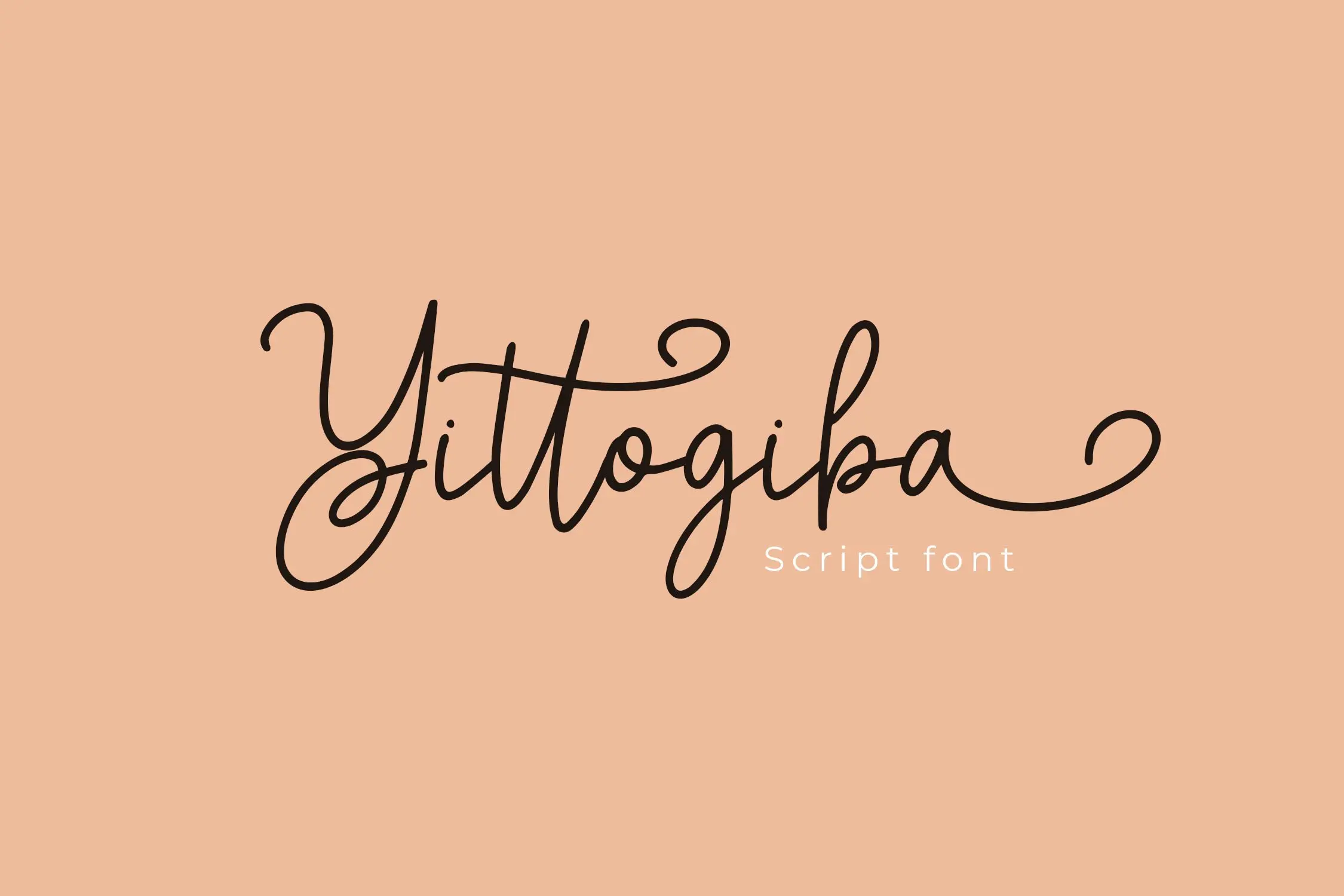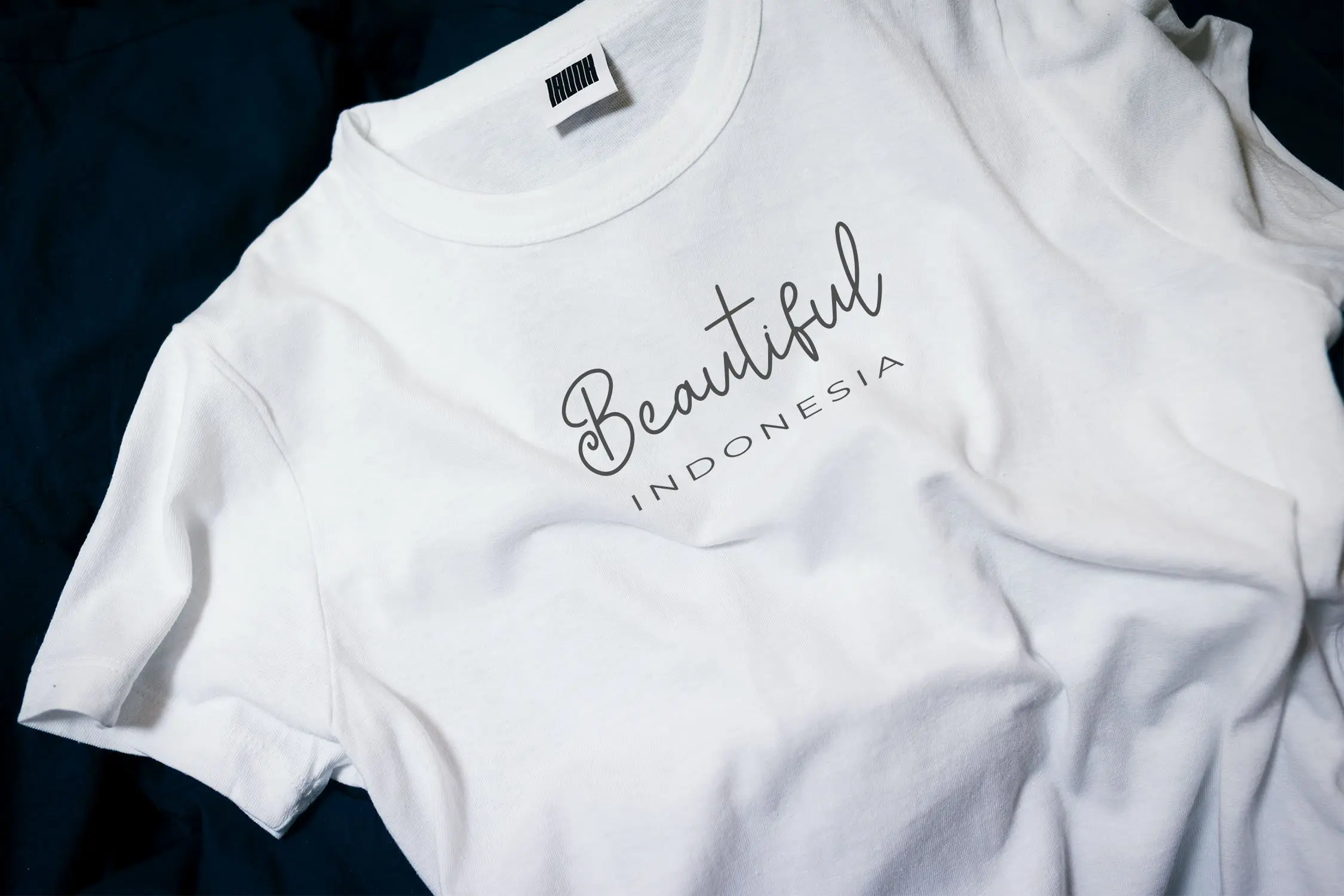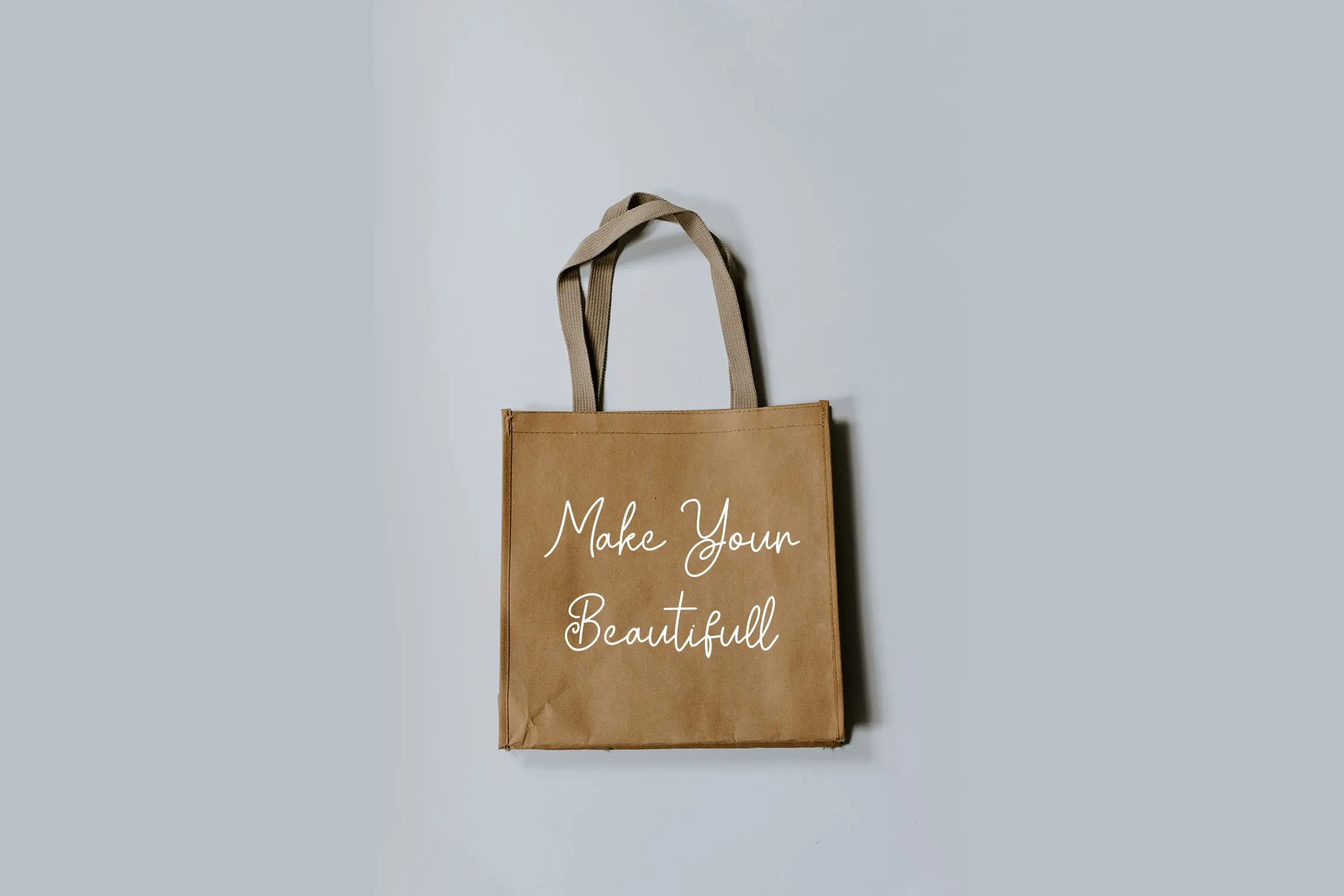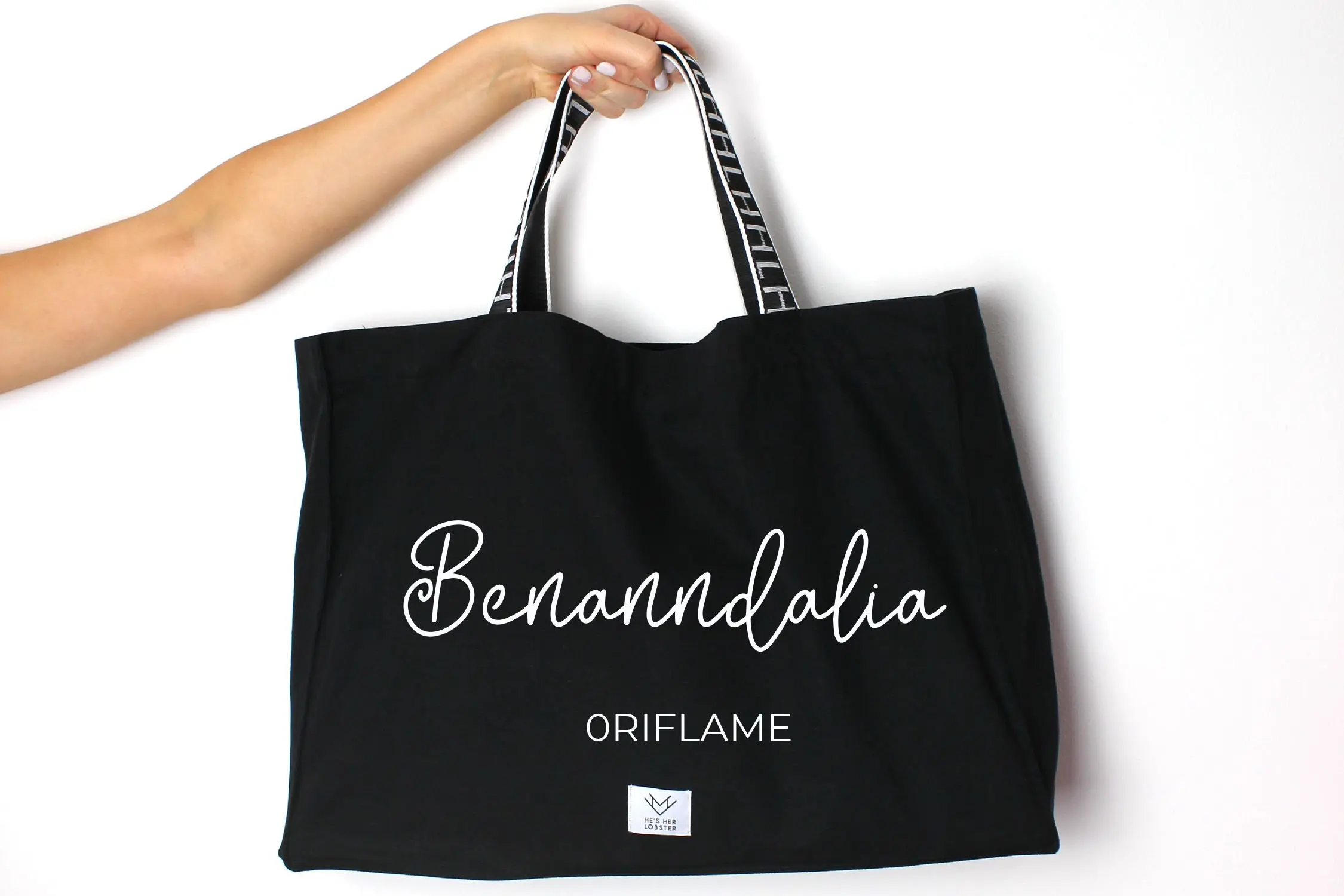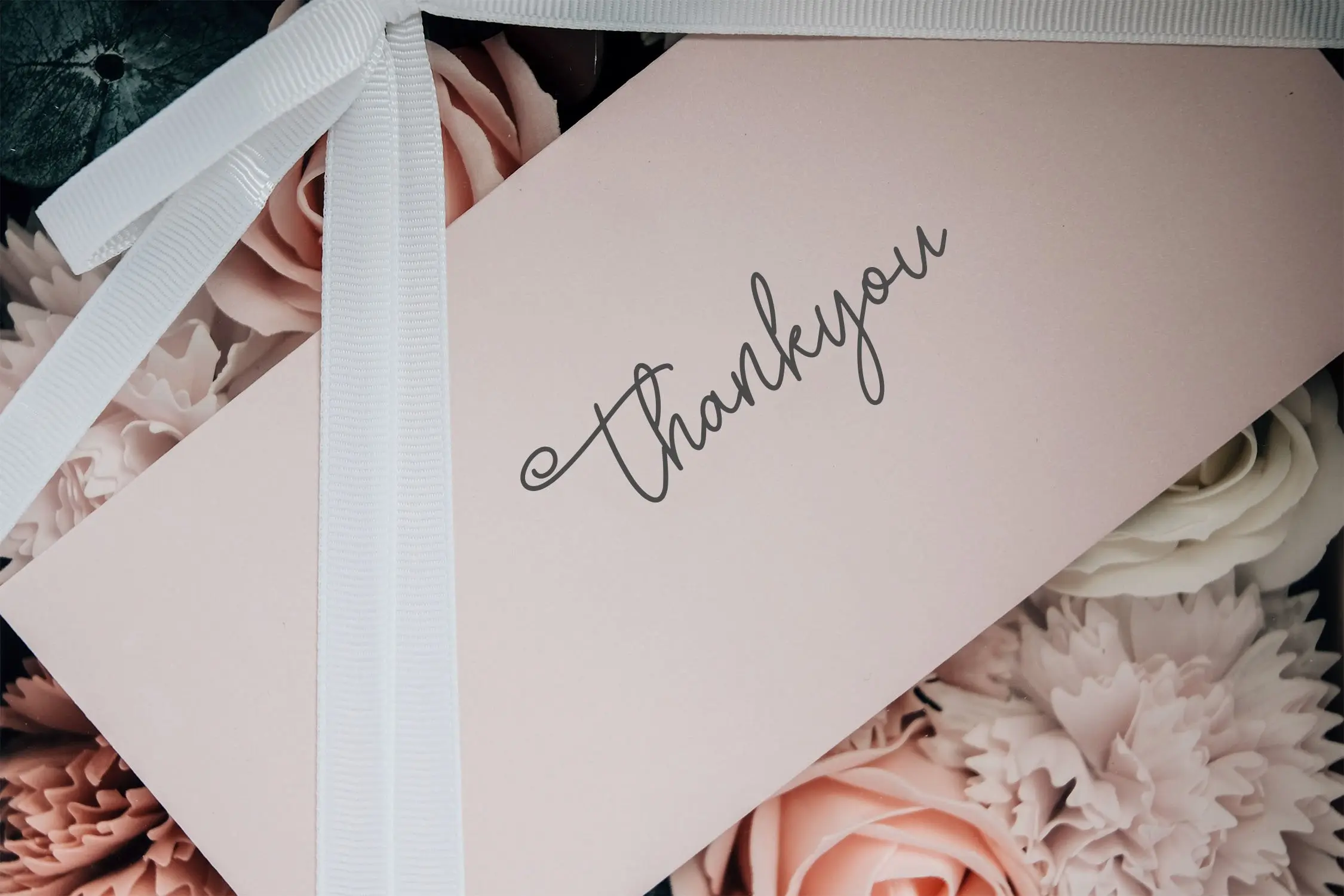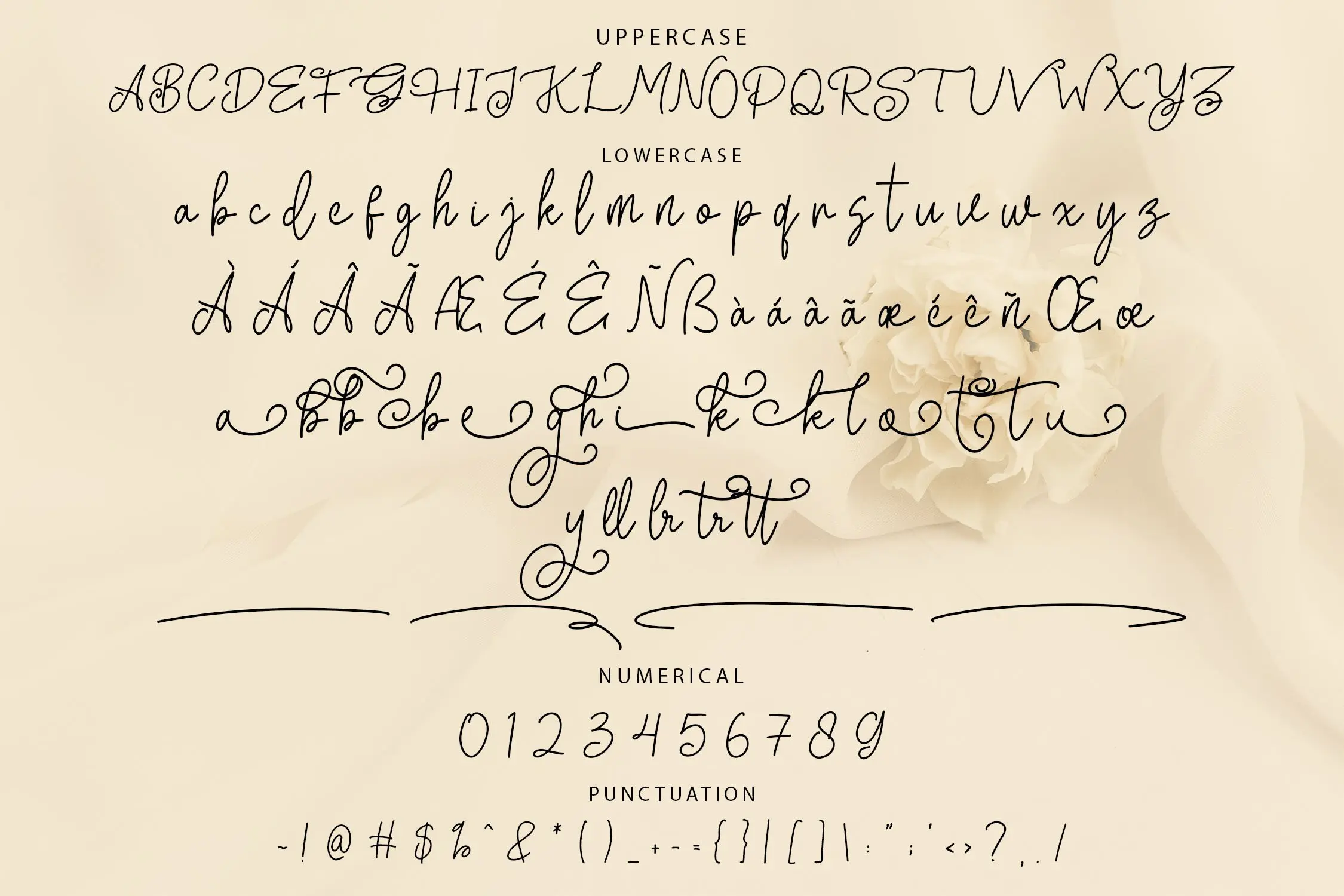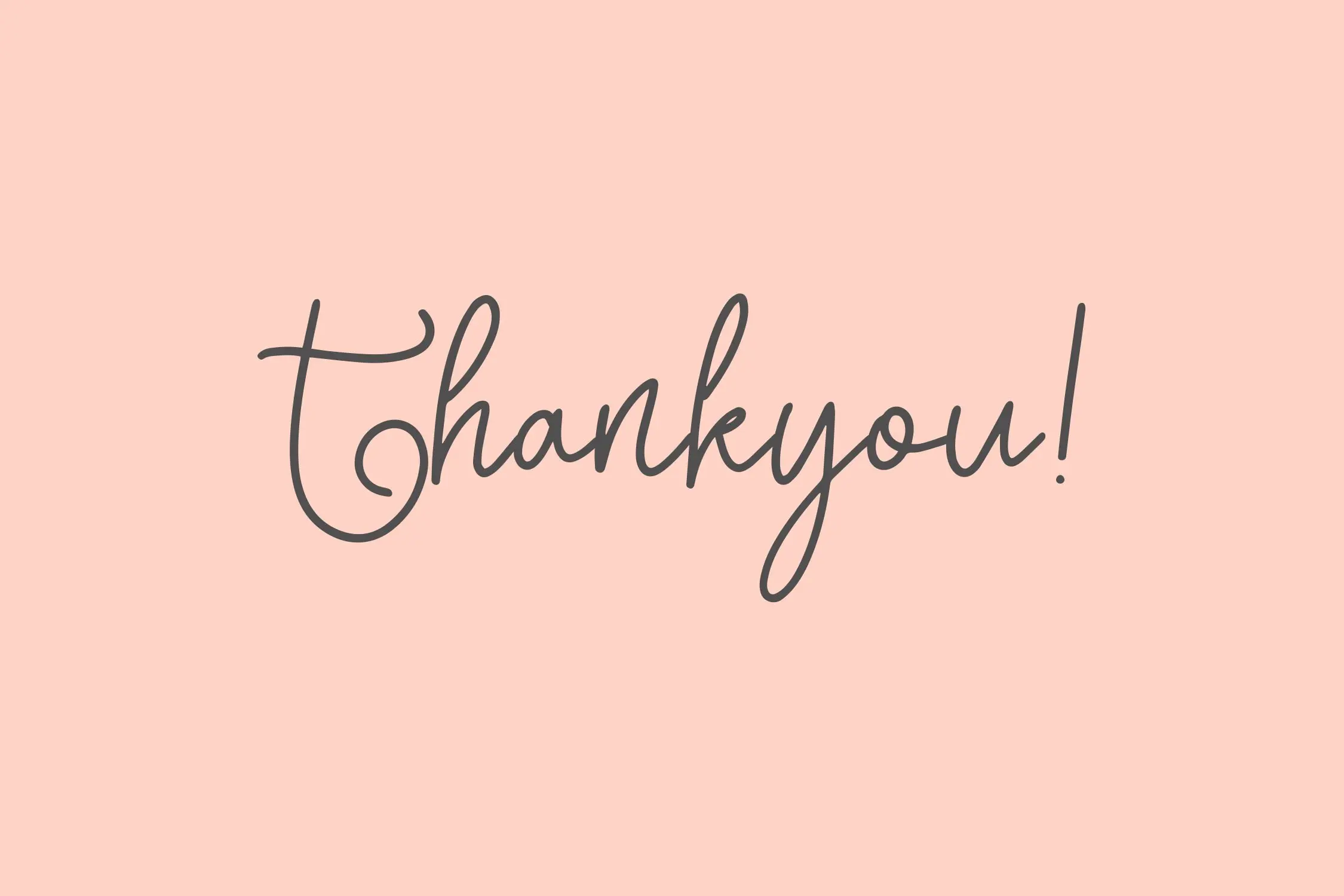
Yittogiba Monoline Script Font
Introducing Yittogiba, a sleek and elegant script font with a refined monoline style. Crafted with unique character shapes, Yittogiba is perfect for adding sophistication and charm to any design project. Whether you’re enhancing product visuals or working on creative designs, this font brings a polished, attractive touch.
Key Features:
- Smooth Ligatures for seamless letter connections
- Stylistic Alternates for creative versatility
- Elegant Swashes to decorate your text
- Multilingual Support for global usage
Elevate your typography with Yittogiba’s stylish monoline script!